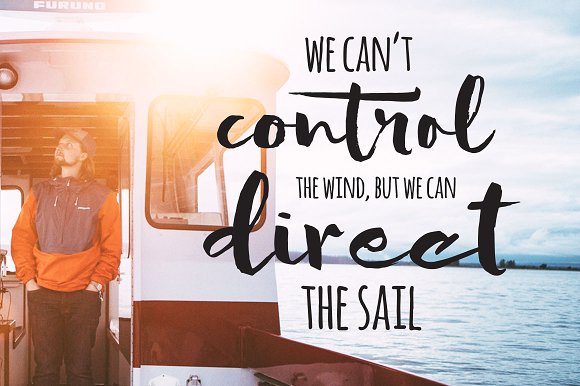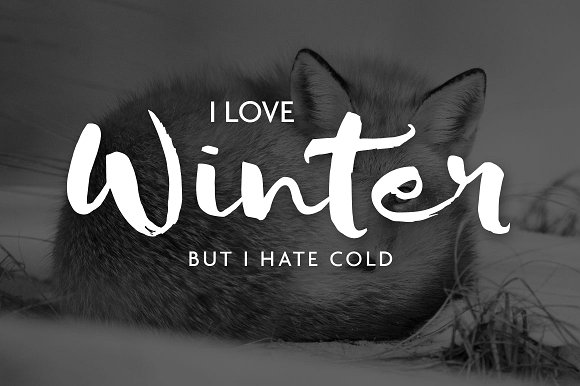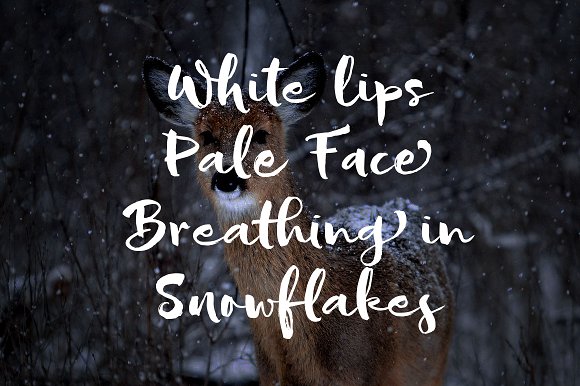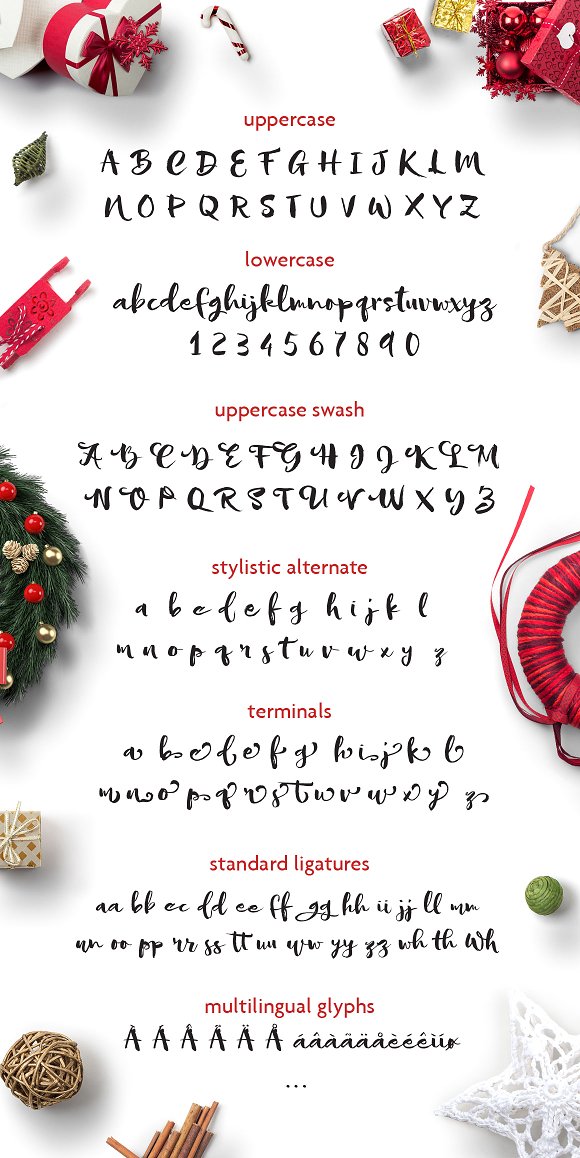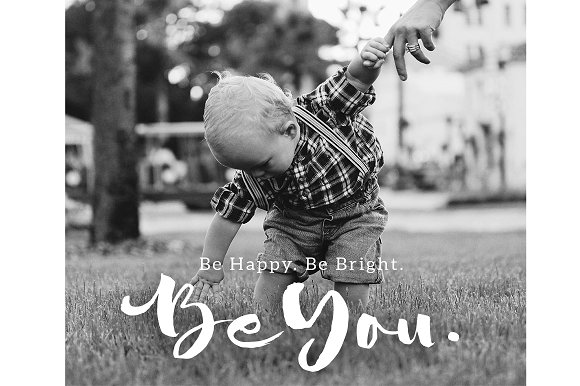
Sofie Script Font
Introducing Sofie Script a contemporary brush font with simple dancing base and bold, as we’re using thick winter jacket. Ideal to complement the design of your special gifts, greeting cards, special quotes, header blog, social media quotes, etc.